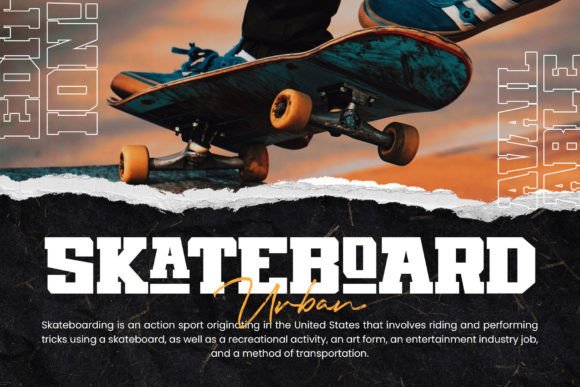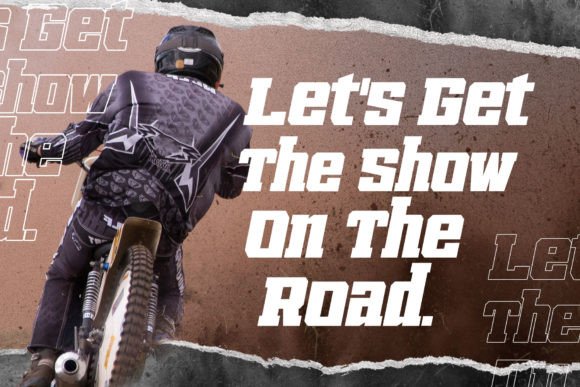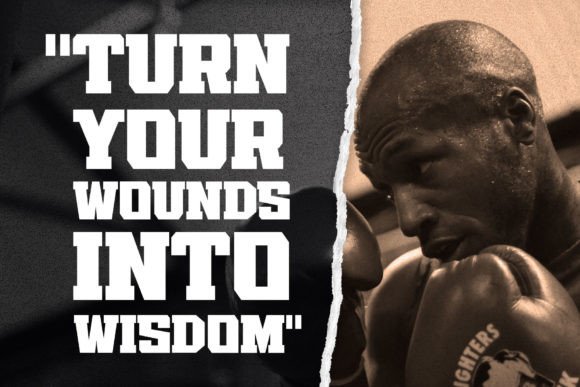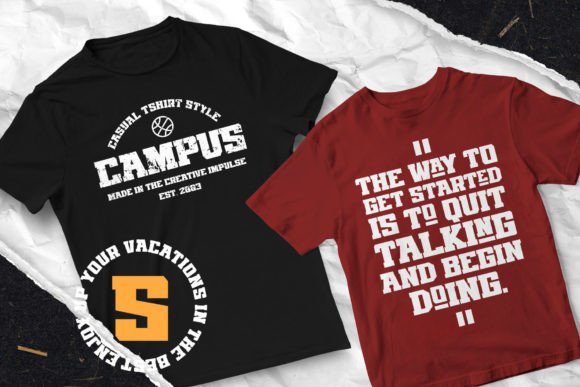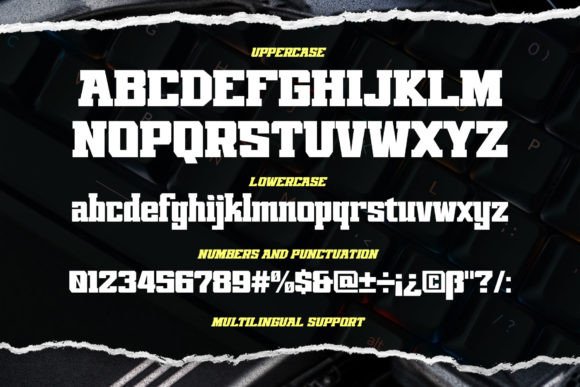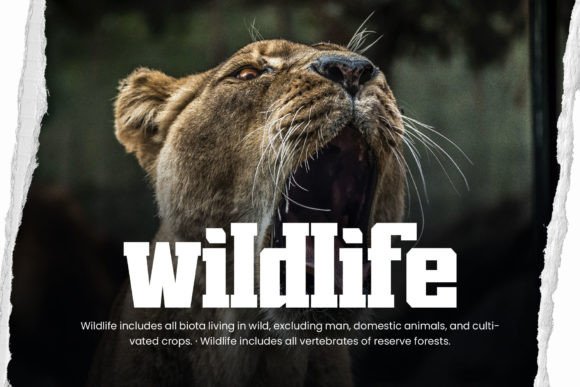
Ganksy Font: The Ultimate Display Font for Modern Designs
In the world of typography, fonts play a crucial role in conveying the tone and personality of a brand or design. Among the numerous fonts available, Ganksy Font stands out as a strong and modern slab serif font that has gained popularity among designers and crafters. In this article, we’ll dive into the features, benefits, and uses of Ganksy Font, and explore why it’s an excellent choice for your next design project.
What is Ganksy Font?
Ganksy Font is a slab serif font designed with a focus on modern letterforms, making it perfect for display purposes. Its sturdy and robust design makes it an ideal choice for headlines, titles, and short texts. The font’s creator has paid high attention to detail, ensuring that each letter is crafted to provide a clean and crisp appearance.
Key Features of Ganksy Font
• Strong Slab Serif Design: Ganksy Font boasts a strong and sturdy slab serif design that commands attention.
• Modern Letterforms: The font features modern letterforms that give it a fresh and contemporary look.
• Versatile: Ganksy Font is suitable for various themes, including sports, animals, techno, youth, lifestyle, and more.
• Highly Legible: The font’s clear and clean design ensures high legibility, even at smaller sizes.
Benefits of Using Ganksy Font
Ganksy Font offers several benefits to designers and crafters, including:
• Instant Recognition: The font’s unique design ensures instant recognition, making it perfect for branding and advertising.
• Flexibility: Ganksy Font can be used for various design projects, from posters and flyers to digital screens and merchandise.
Use Cases for Ganksy Font
Ganksy Font is an excellent choice for various design projects, including:
• Posters and Flyers: Use Ganksy Font to create eye-catching posters and flyers for events, promotions, and products.
• Branding and Advertising: The font’s strong and modern design makes it perfect for branding and advertising campaigns.
• Digital Screens: Ganksy Font is suitable for digital screens, including video games, apps, and websites.
• Merchandise: Use Ganksy Font to create stylish and modern merchandise, such as t-shirts, mugs, and phone cases.
Tips for Using Ganksy Font
To get the most out of Ganksy Font, follow these tips:
• Use it for Headlines and Titles: Ganksy Font is perfect for headlines and titles, where its strong and modern design can shine.
• Experiment with Colors: Try pairing Ganksy Font with different colors to create a unique and eye-catching design.
• Mix and Match with Other Fonts: Combine Ganksy Font with other fonts to create a contrasting and visually appealing design.
Ganksy Font is a powerful and modern slab serif font that offers a range of benefits and uses for designers and crafters. Its strong and sturdy design, combined with its versatility and high legibility, make it an excellent choice for various design projects. Whether you’re creating posters, branding campaigns, or digital screens, Ganksy Font is sure to make a lasting impression.